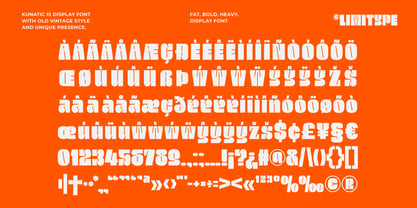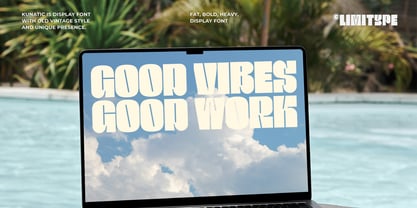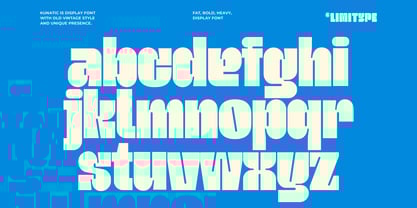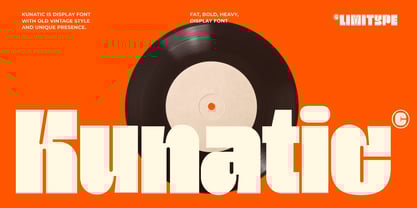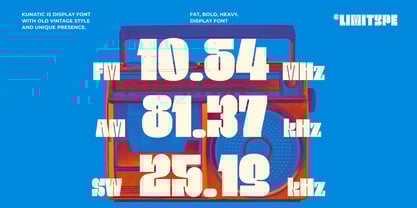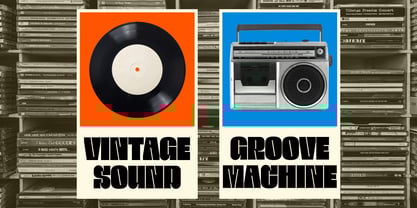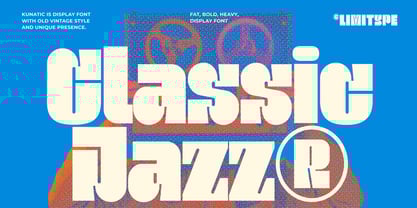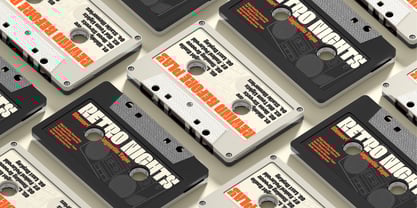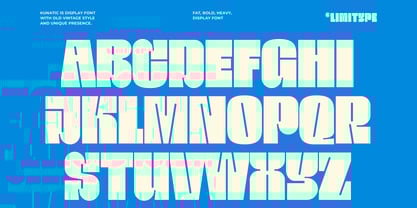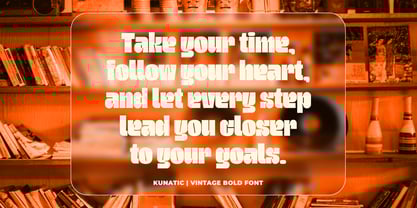
Kunatic
by limitype
The Kunatic Font Family was designed by Muhammad Muammar, Furqan Sudirman and published by limitype. Kunatic contains 1 styles.
Kunatic is a condensed old retro display font designed to deliver a bold and unique visual presence. This typeface combines vintage inspired character with clean, structured letterforms, making it perfect for branding, logos, posters, packaging, and editorial design. Ideal for designers looking to create strong, distinctive, and professional visual identities across print and digital media. Kunatic available with: Uppercase Lowercase Number Symbol Multilingual
Designers: Muhammad Muammar, Furqan Sudirman
Publisher: limitype
Foundry: limitype
Design Owner: limitype